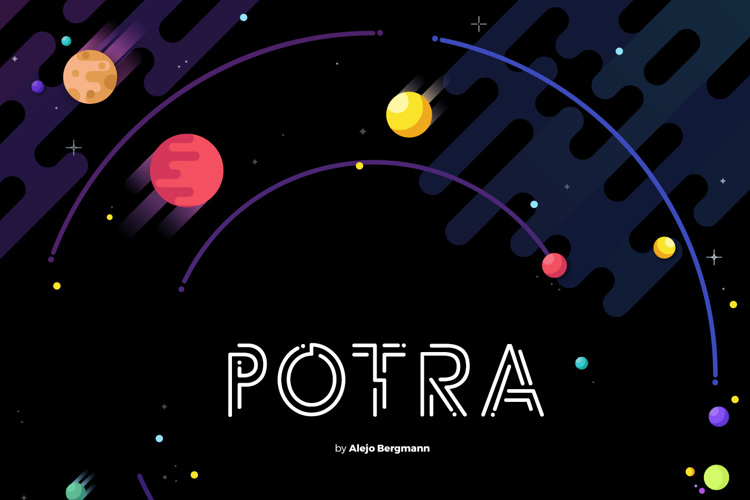
Potra Light Font
About Potra Light Font
More info from Alejo Bergmann
Potra is a futuristic display font with rounded lines designed by Alejo Bergmann. It contains all caps letters, numerals and symbols. This font perfectly suites for variety display purposes, including logotypes, badges and labels, headlines and banners, prints and much more.